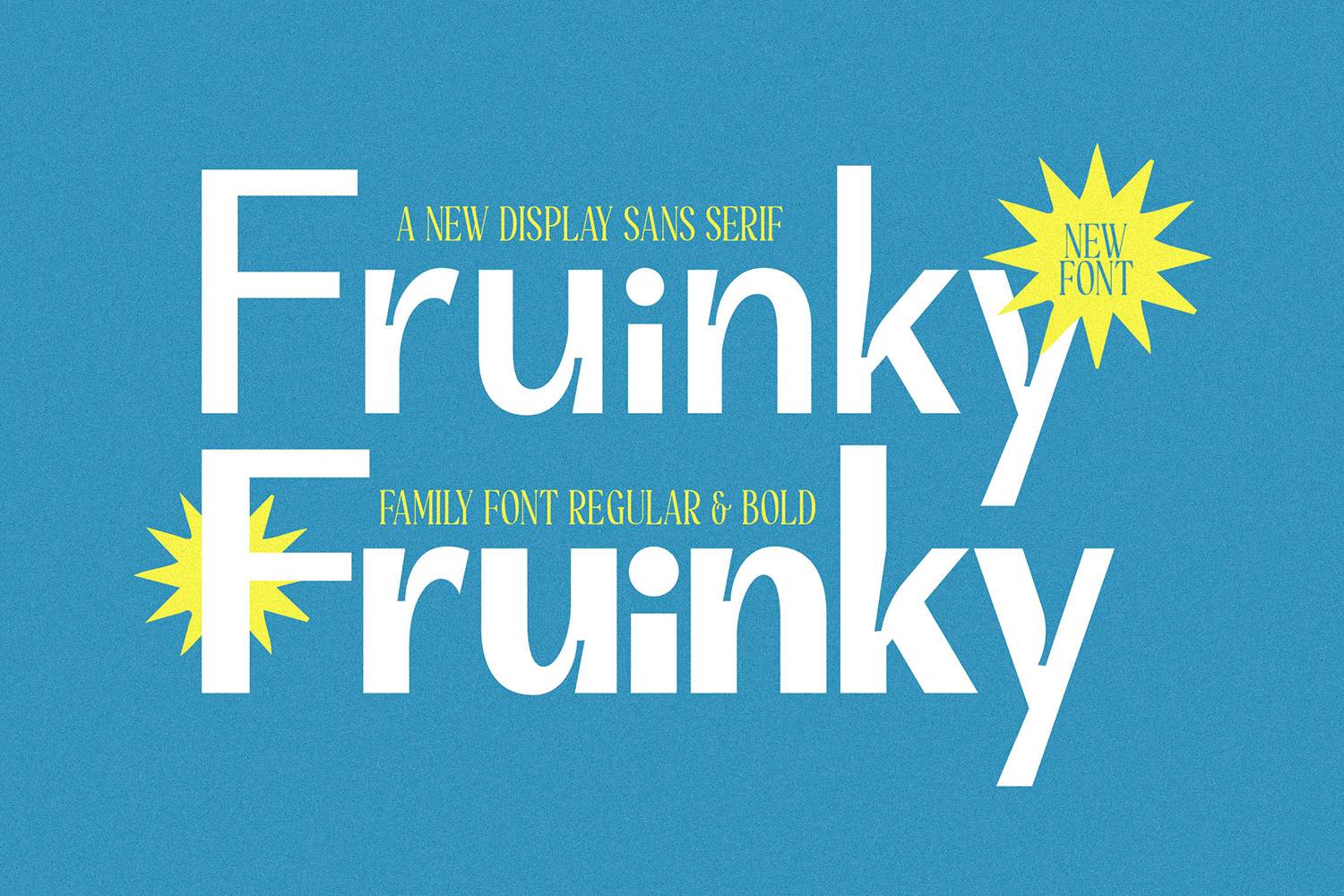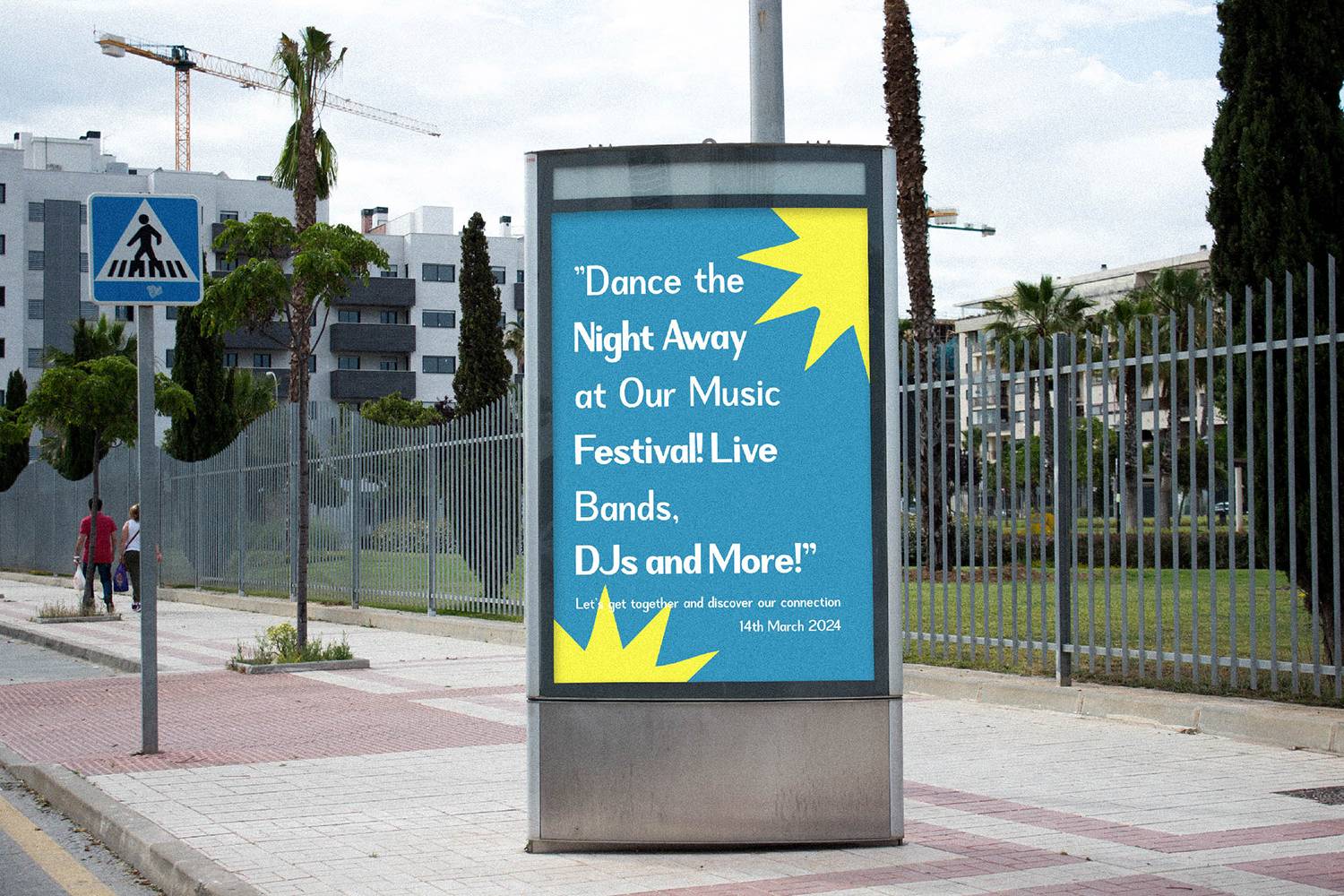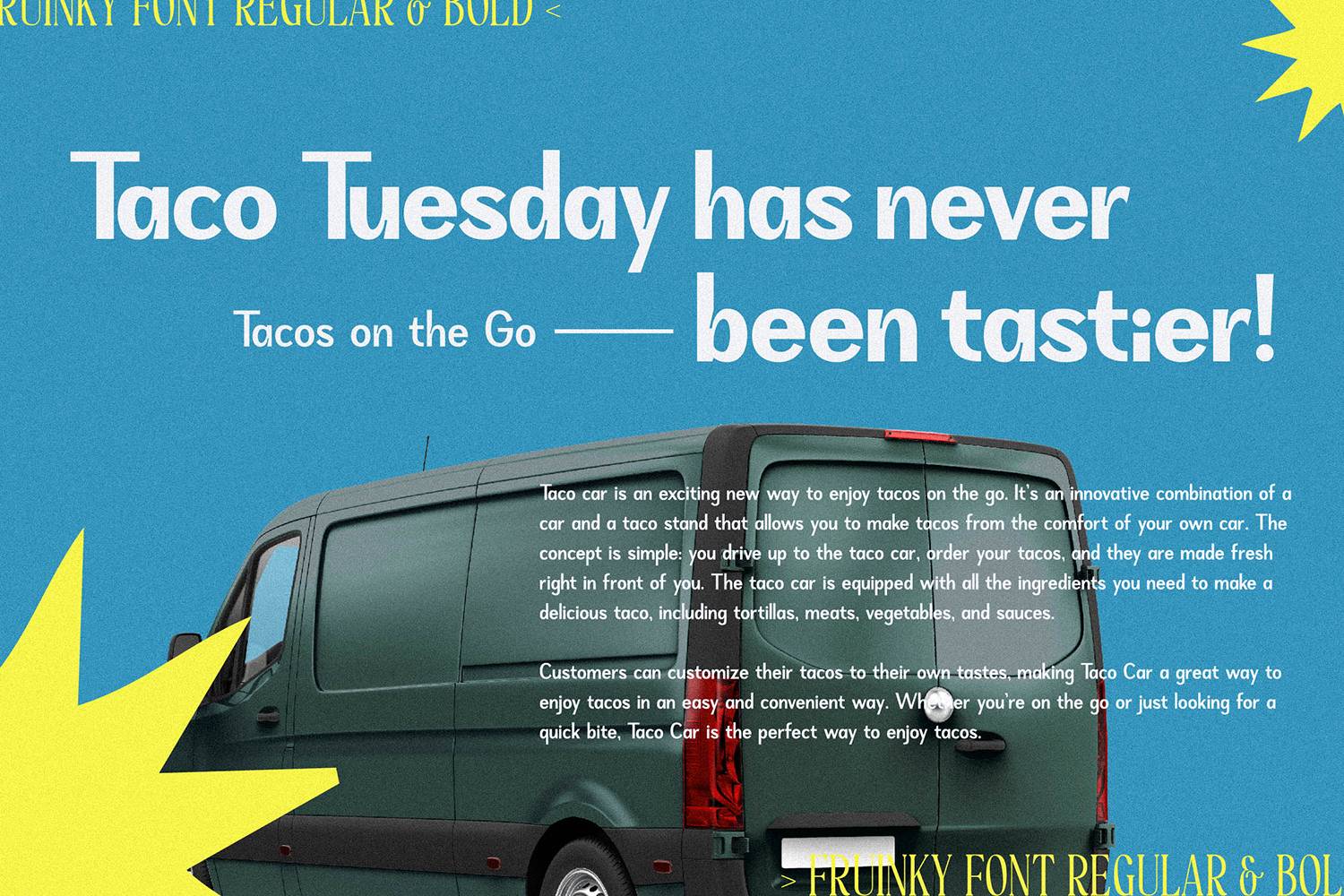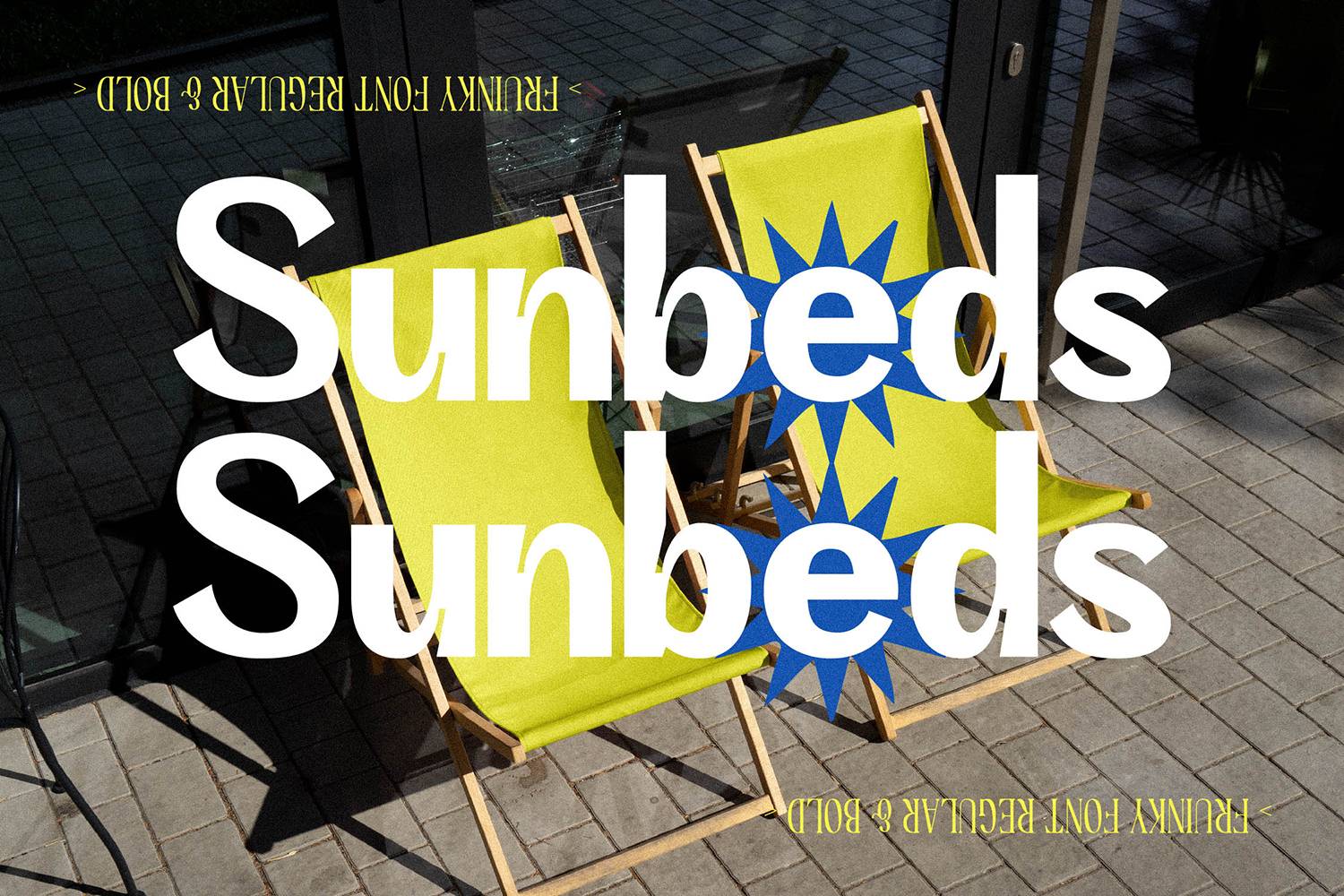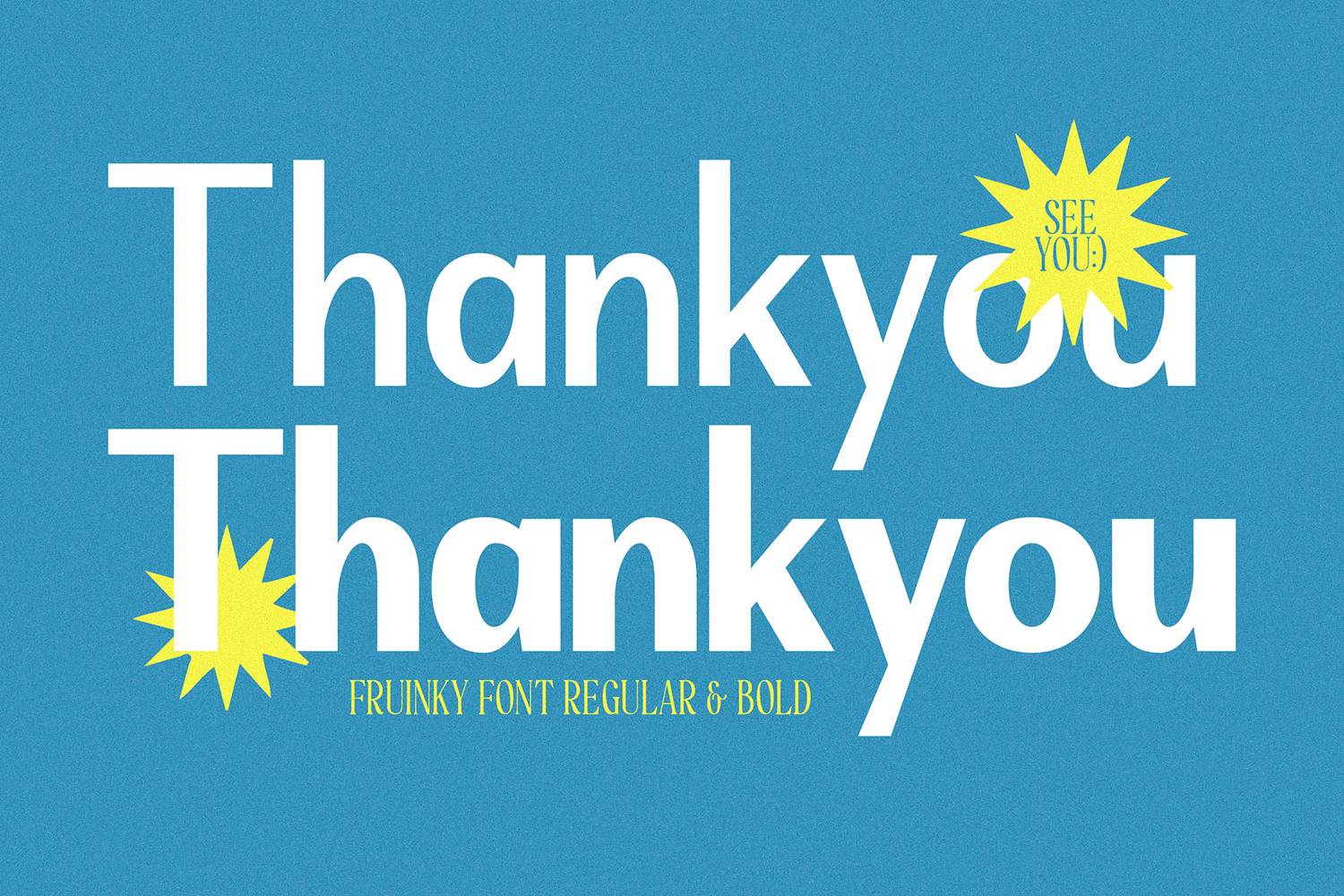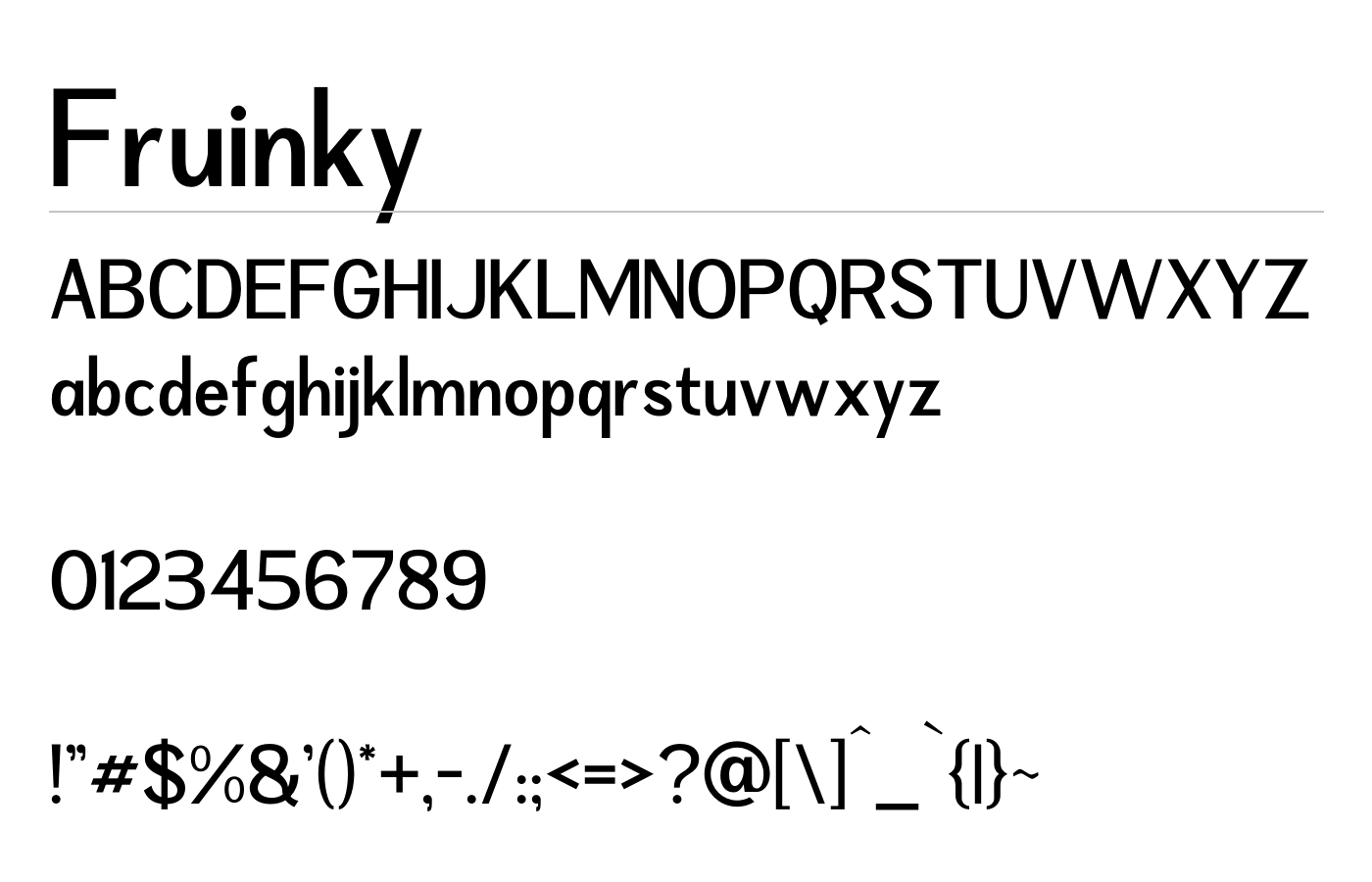
Fruinky is a modern, clean sans serif font with a slightly condensed, upright structure that offers a balanced x-height and uniform stroke weight, creating a clear and readable appearance. Its straightforward letterforms, featuring single-story 'a' and 'g,' combined with a subtle geometric influence, make it ideal for contemporary design projects needing a professional yet approachable feel. This font works well for branding, editorial layouts, websites, and signage where clarity and a sleek, modern vibe are desired.
Fruinky Font
About Fruinky Font